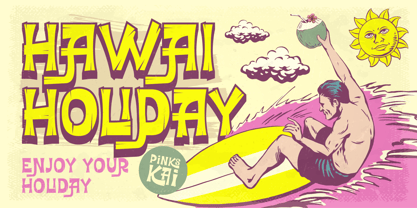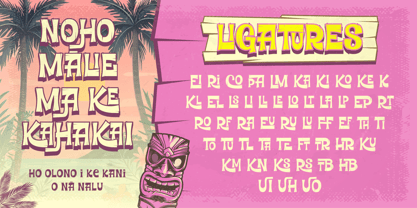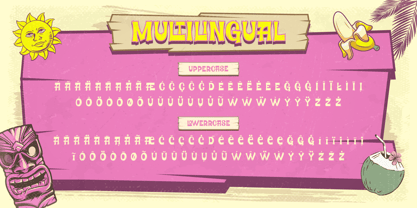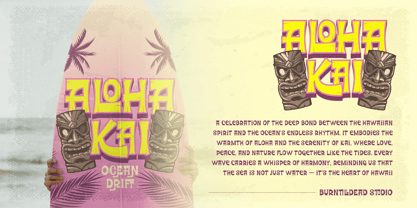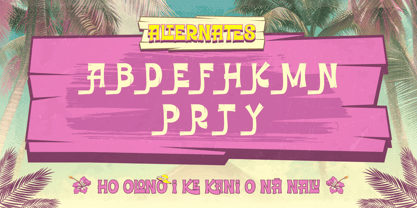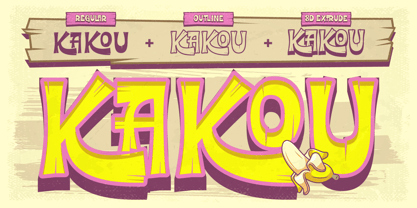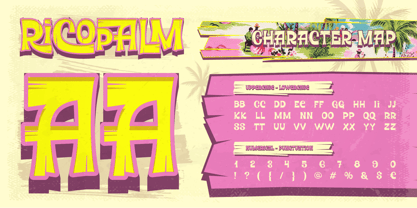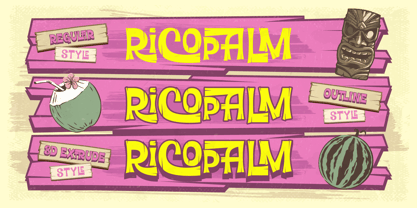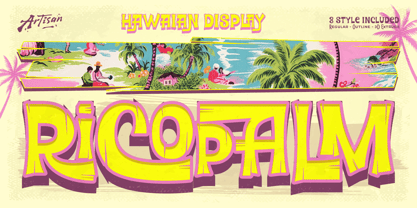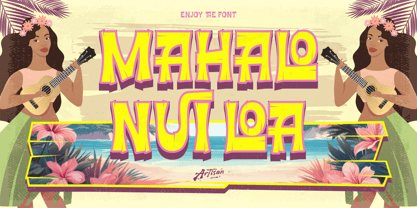
Ricopalm
by Artisan Themes
The Ricopalm Font Family was designed by Meidy Meichico and published by Artisan Themes. Ricopalm contains 3 styles and family package options. More about this family
Say aloha to Ricopalm! This playful Hawaiian-style display font brings a fresh tropical energy to your designs. Inspired by vintage beach posters and tropical vacations, Ricopalm is perfect for when you want your project to feel fun, relaxed, and full of life. With its bold shapes, funky curves, and bright personality, Ricopalm makes any word look like it just came off a surfboard in Waikiki. It comes with 3 styles (Regular, Outline, and 3D Extrude) plus lots of ligatures and alternates to keep your typography looking natural and cool. Whether you’re creating summer event posters, beach café menus, logo, or throwback Instagram graphics — Ricopalm is your perfect wave to ride. Features: A - Z set (Uppercase & Lowercase - All Caps), Number, Alternates, Ligatures, Punctuation, Multilingual
Designers: Meidy Meichico
Foundry: Artisan Themes